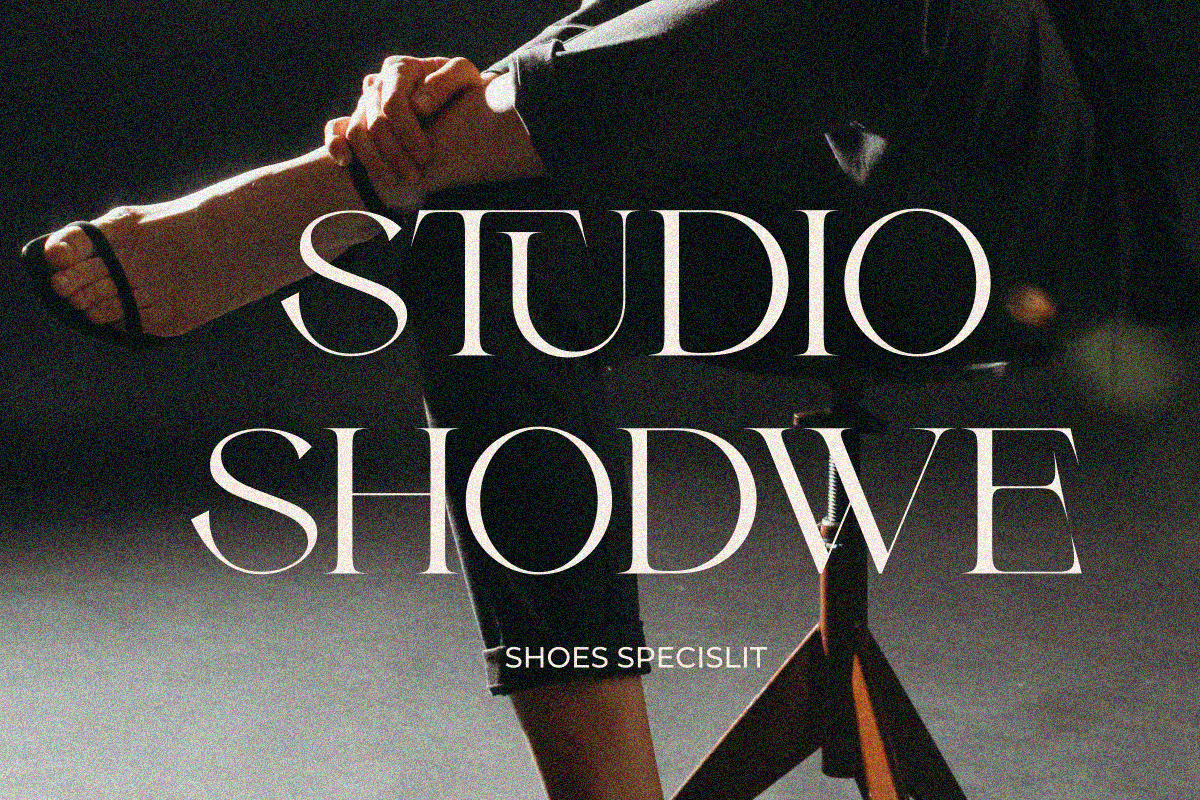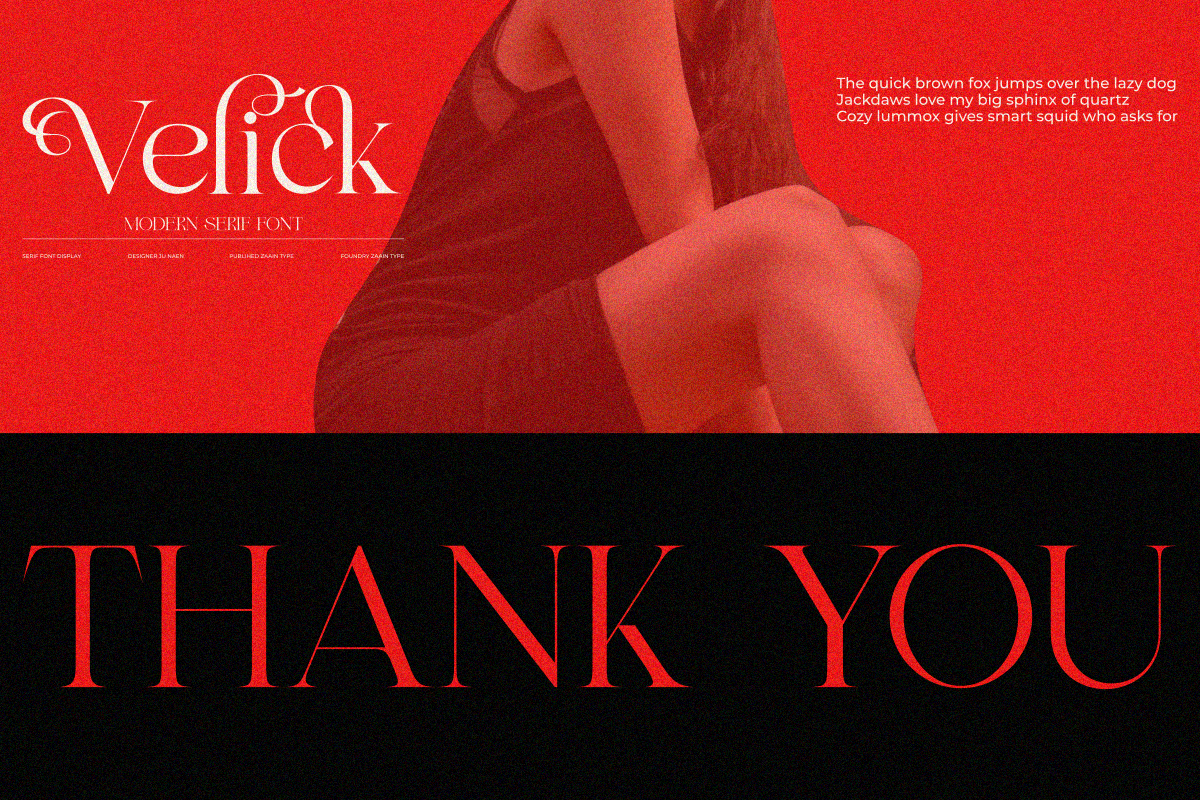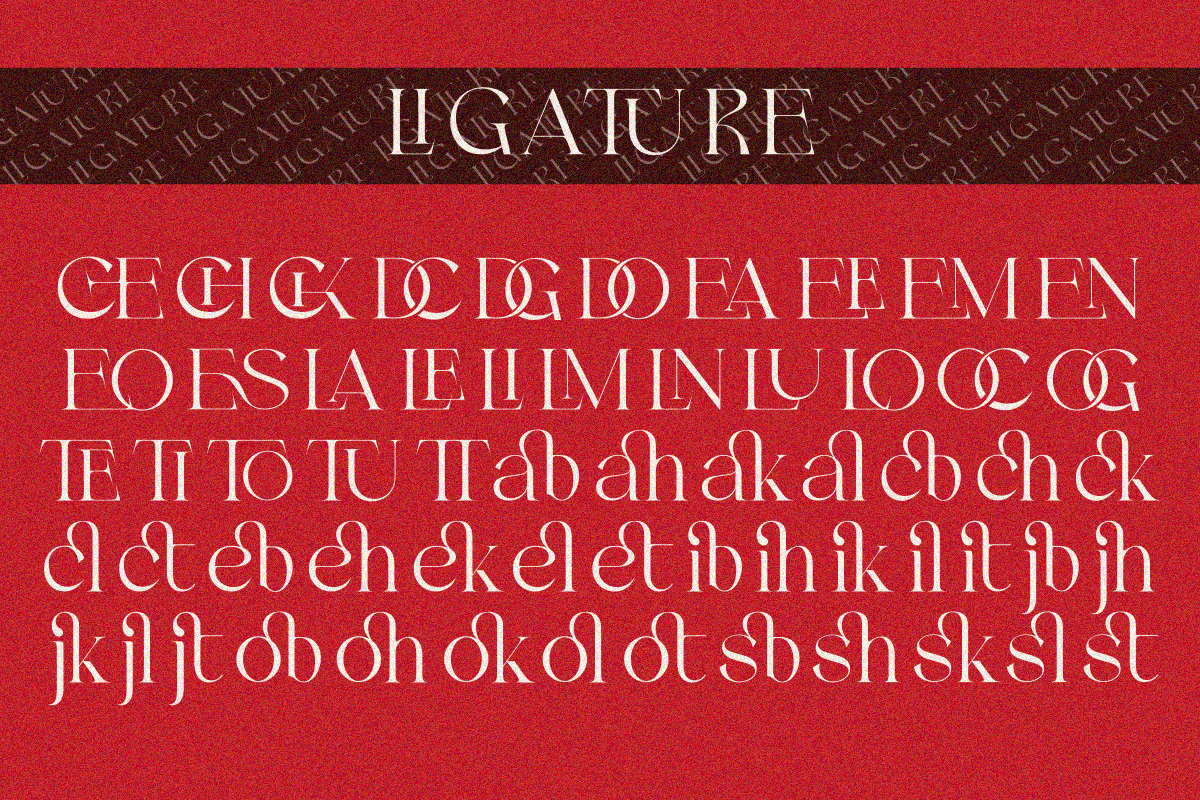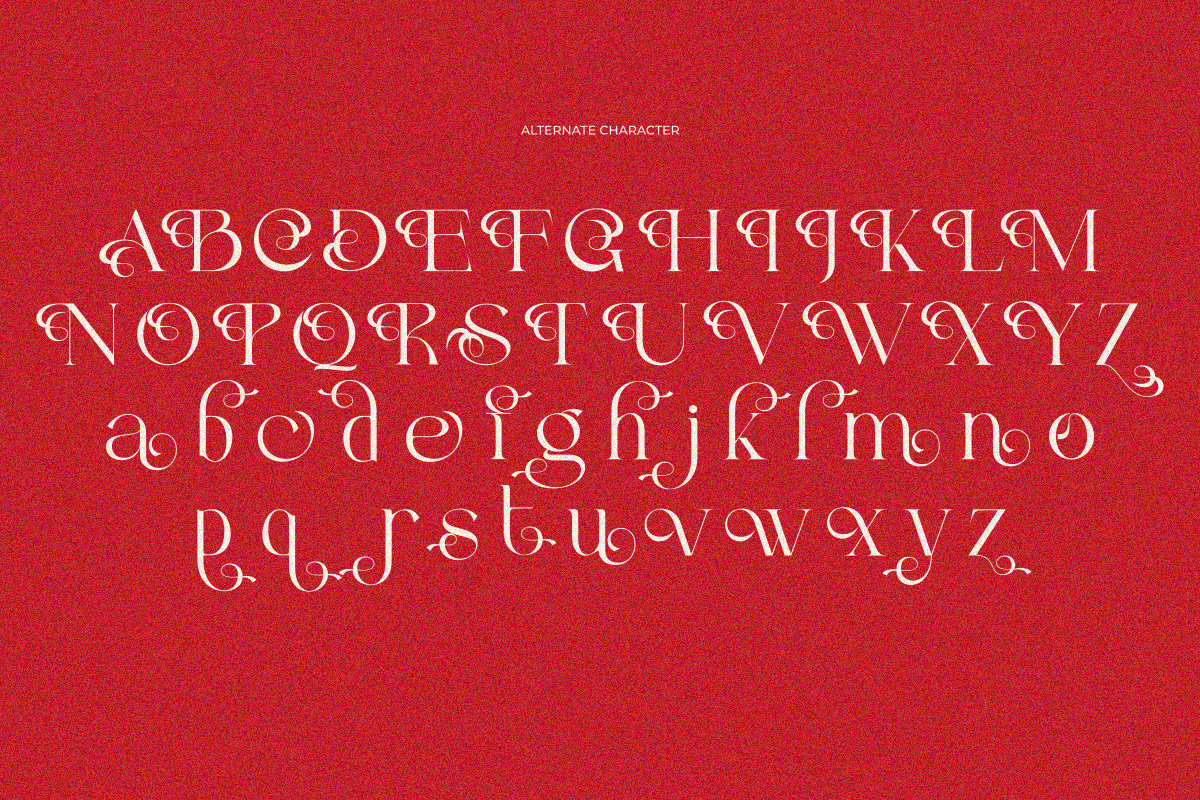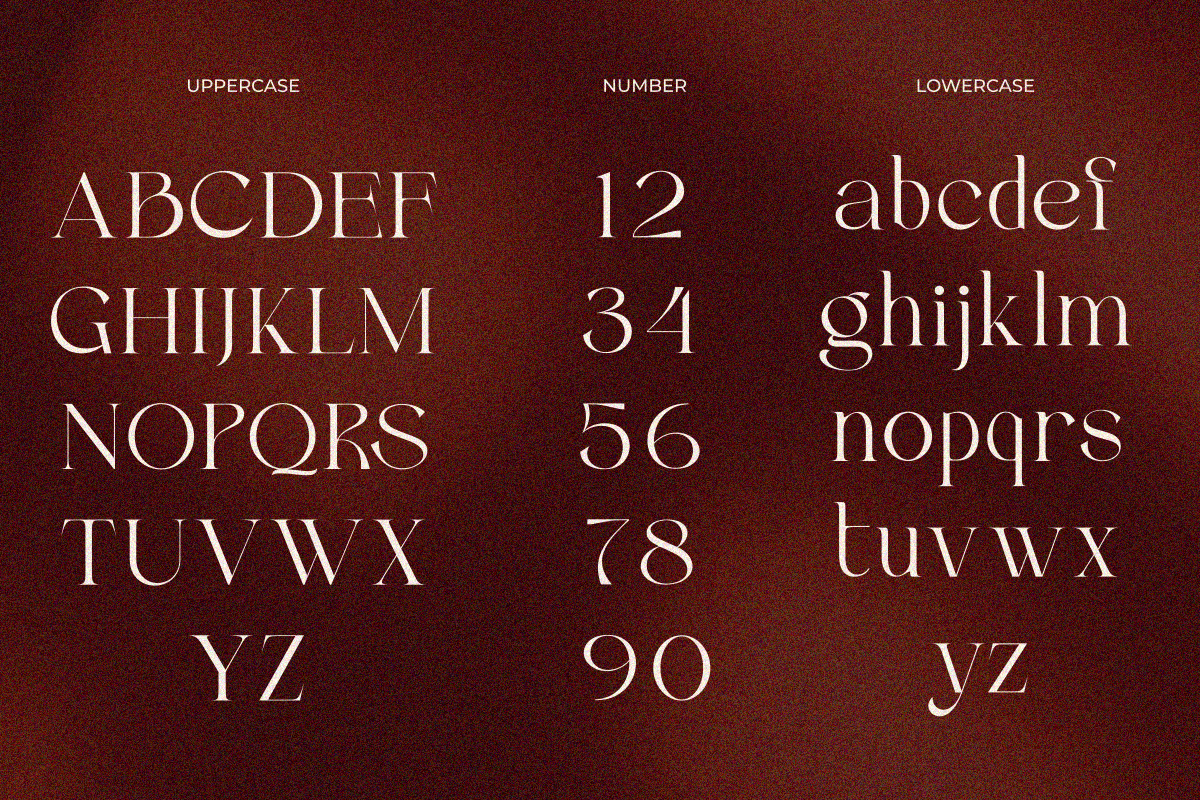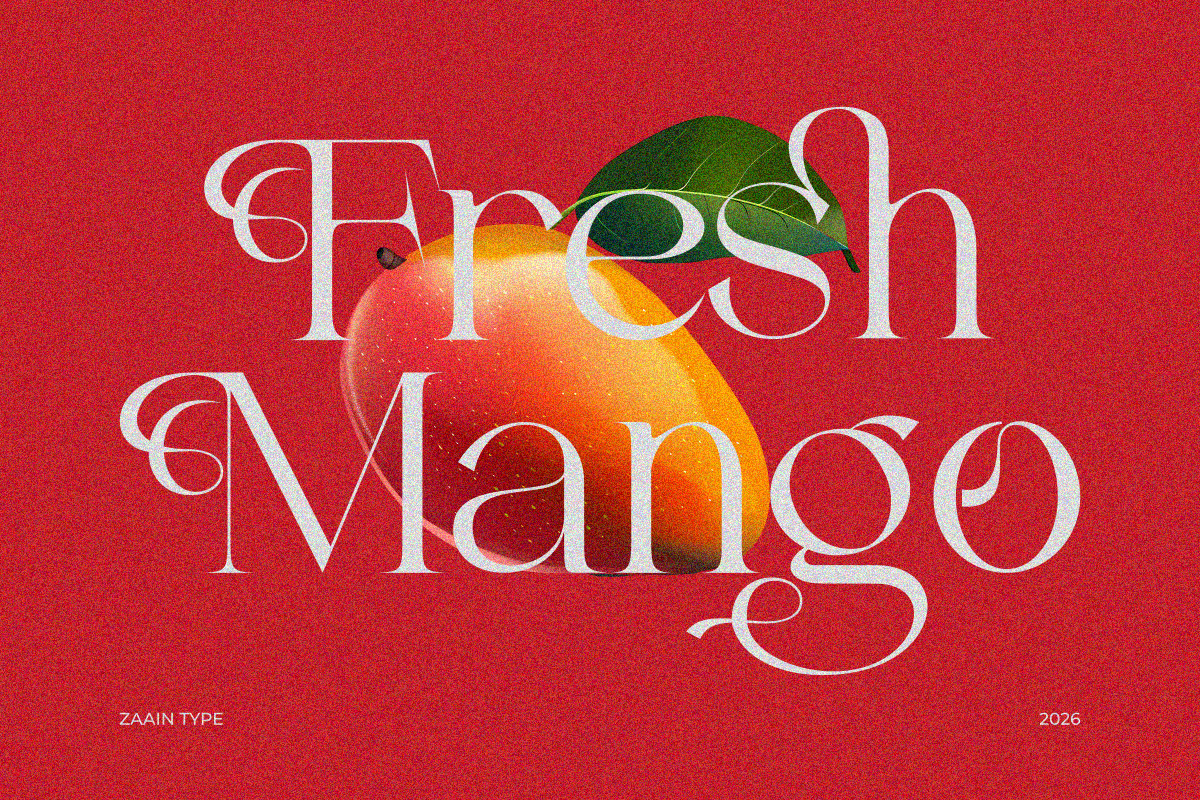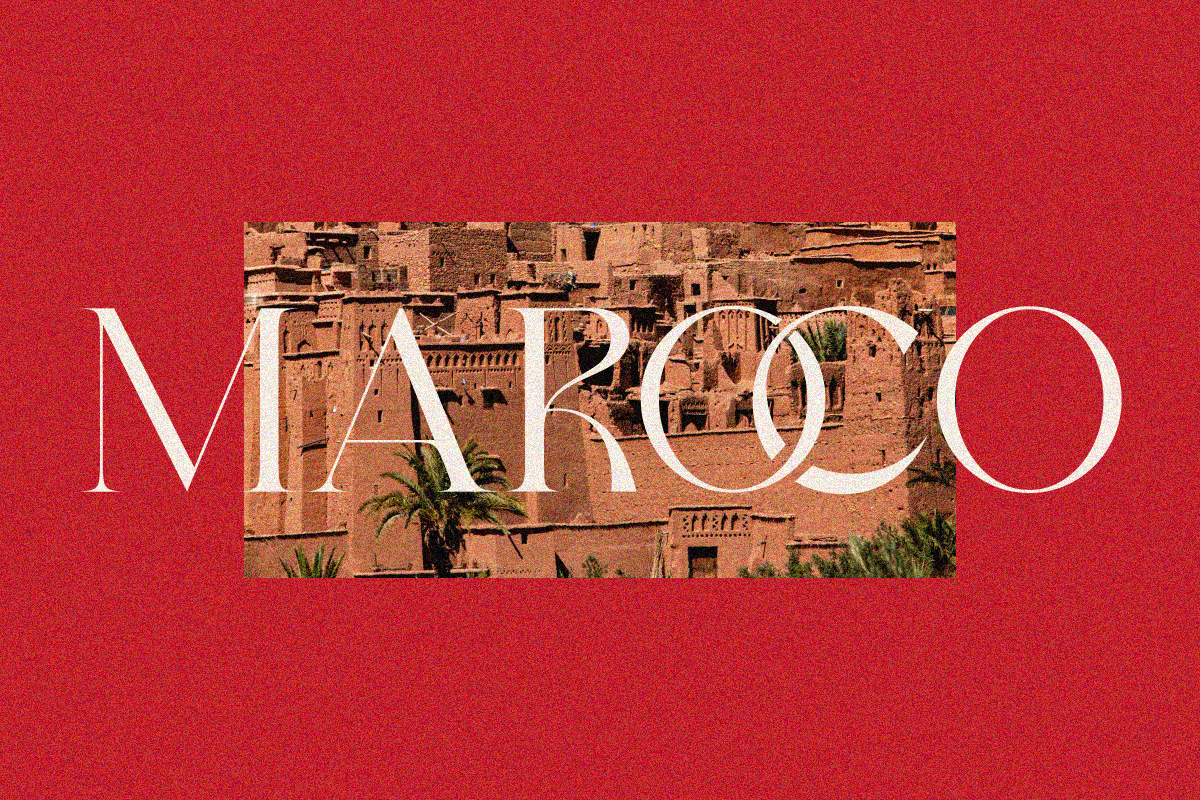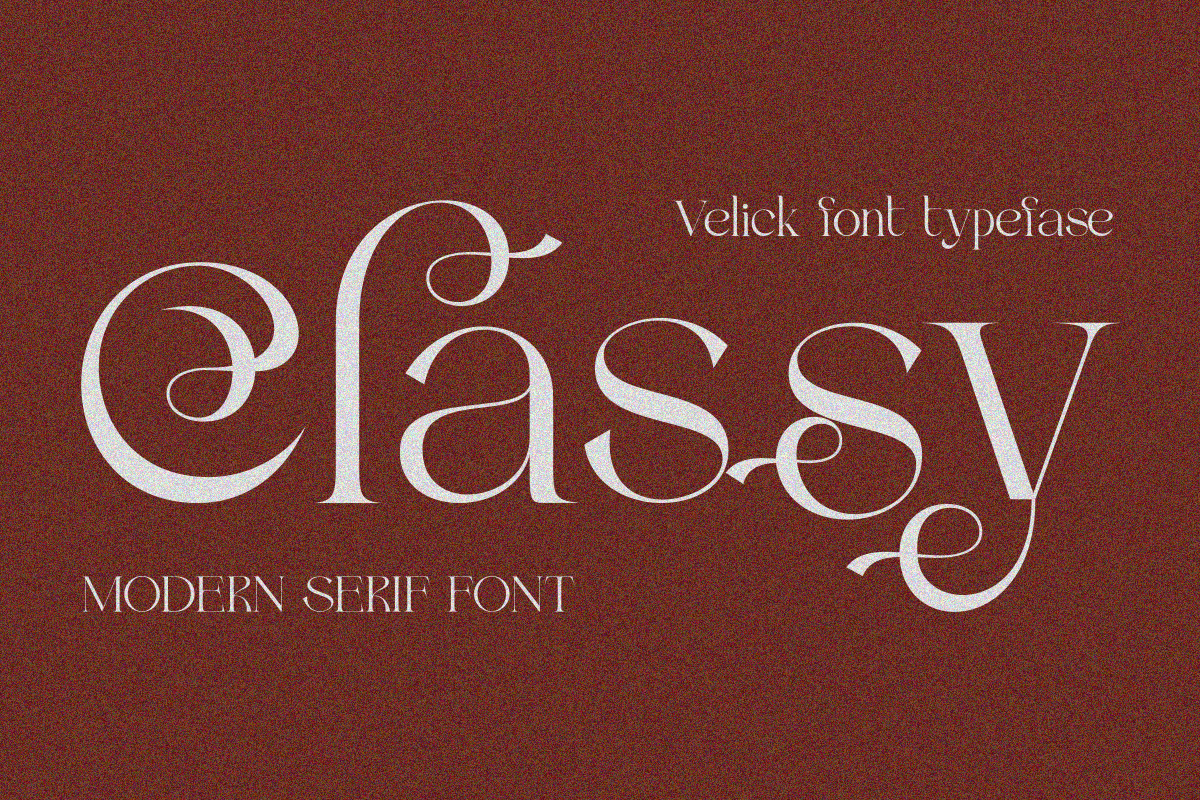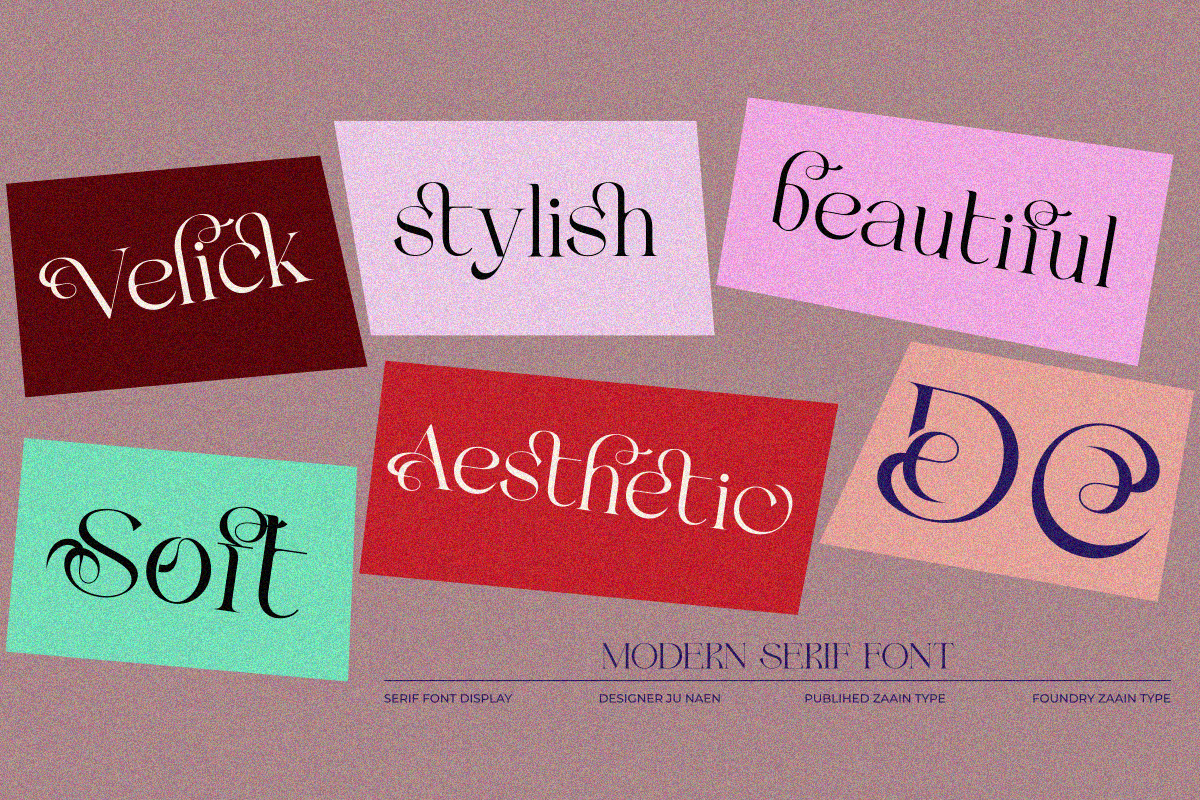
Velick
Velick is a modern serif font that combines timeless elegance with a contemporary touch. Featuring refined serifs, balanced proportions, and sophisticated letterforms, Velick creates a luxurious and professional impression for any design project.
Perfect for branding, fashion, editorial, logos, magazines, invitations, and premium packaging, Velick brings a stylish and distinctive character to your creative work. Its elegant details and versatile appearance make it an excellent choice for designers looking to achieve a high-end and sophisticated aesthetic